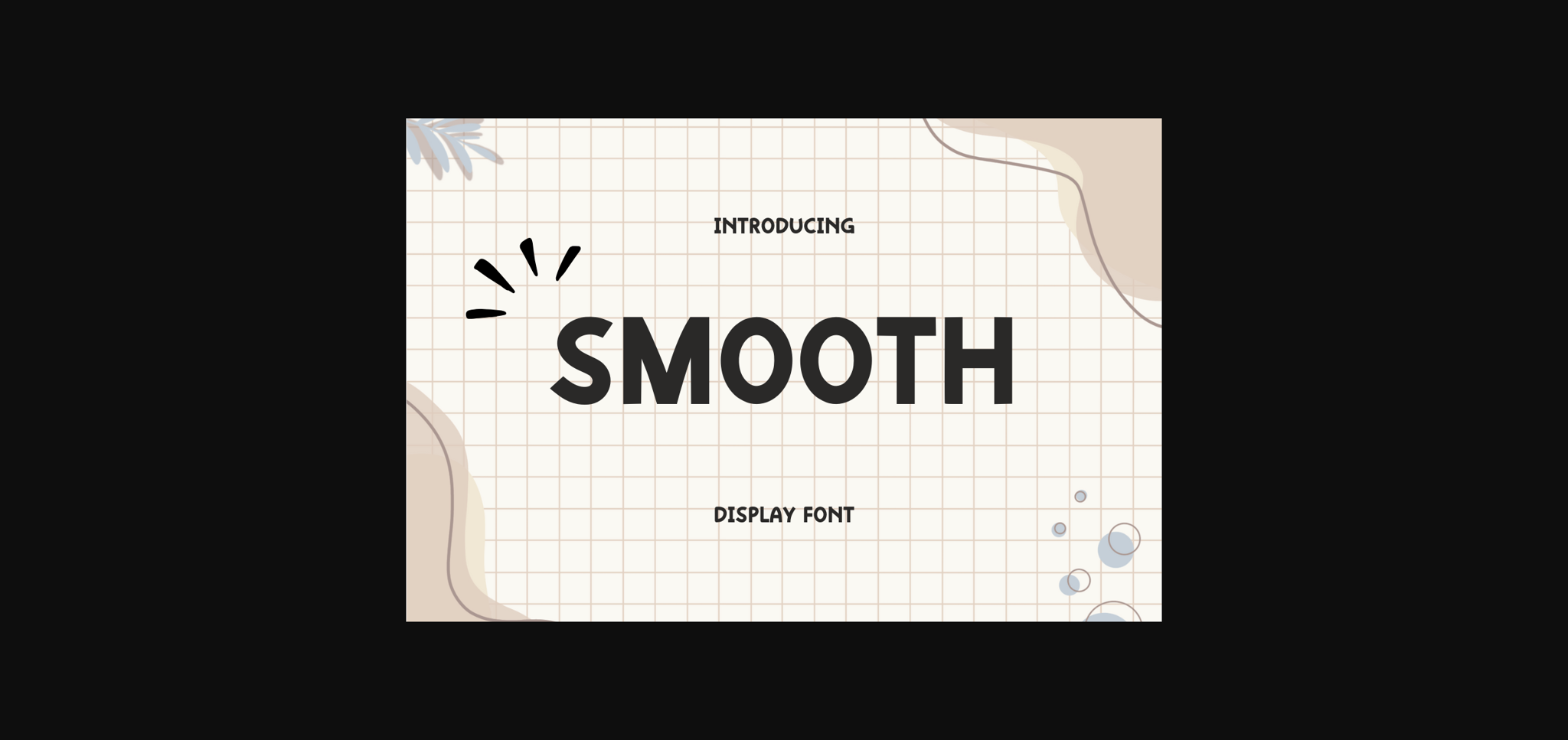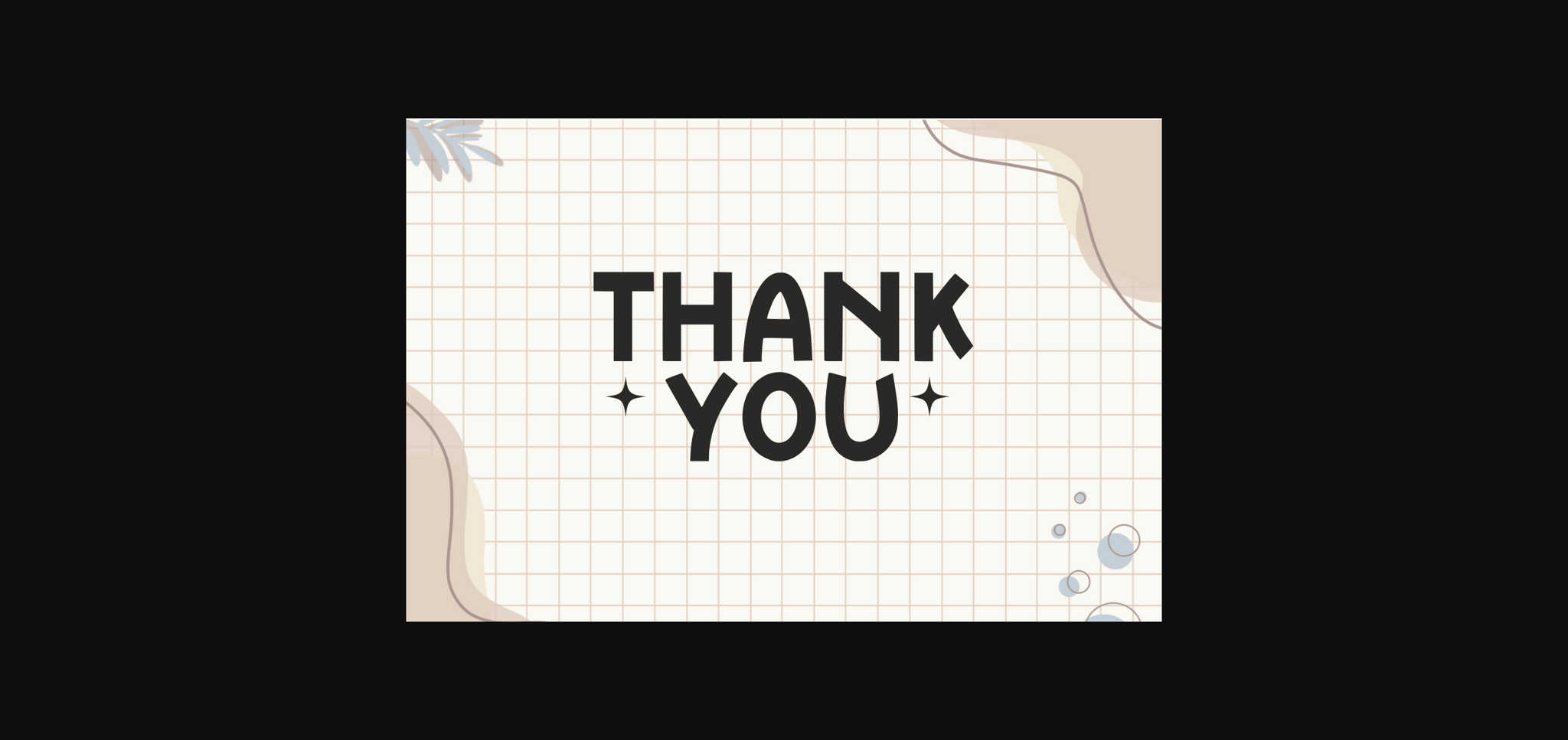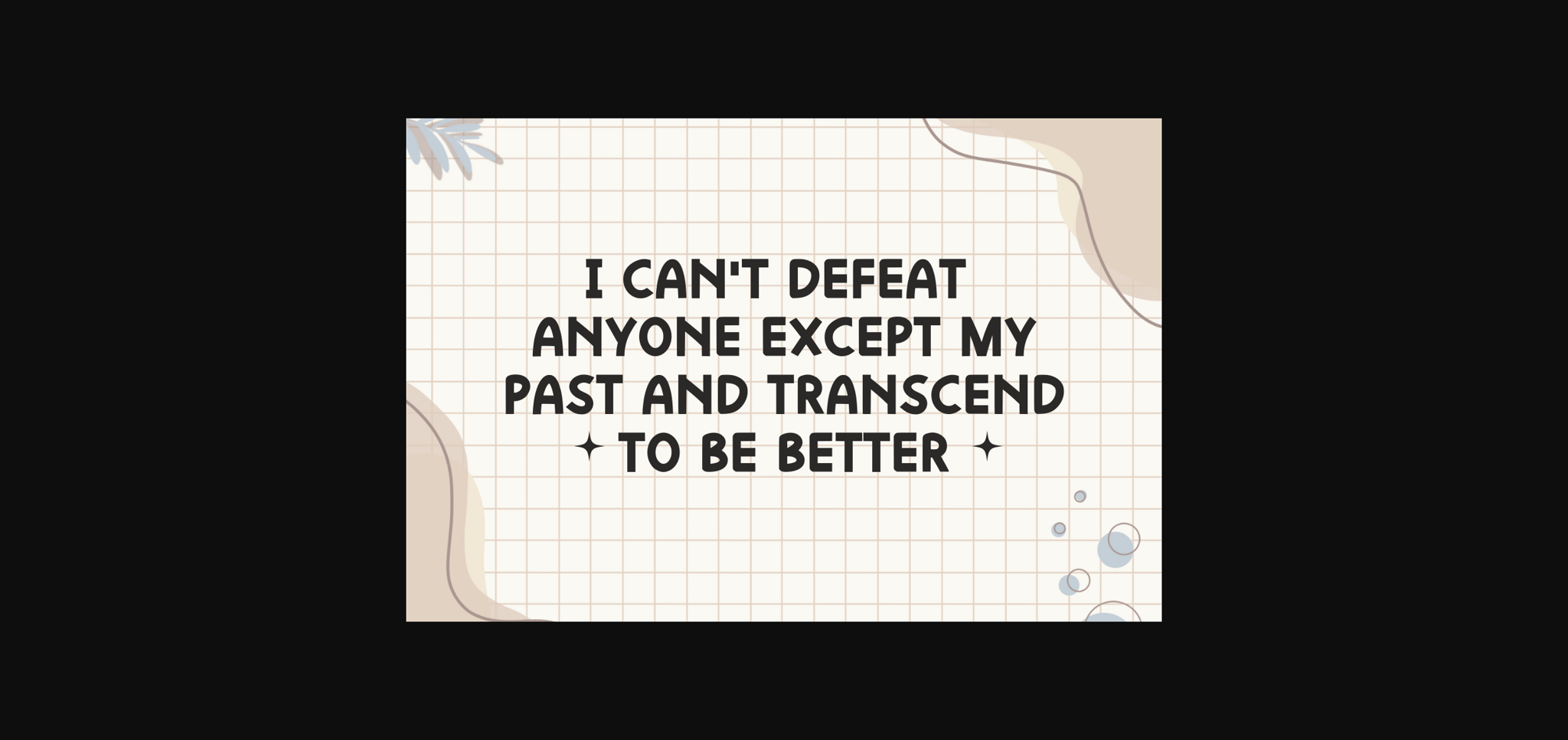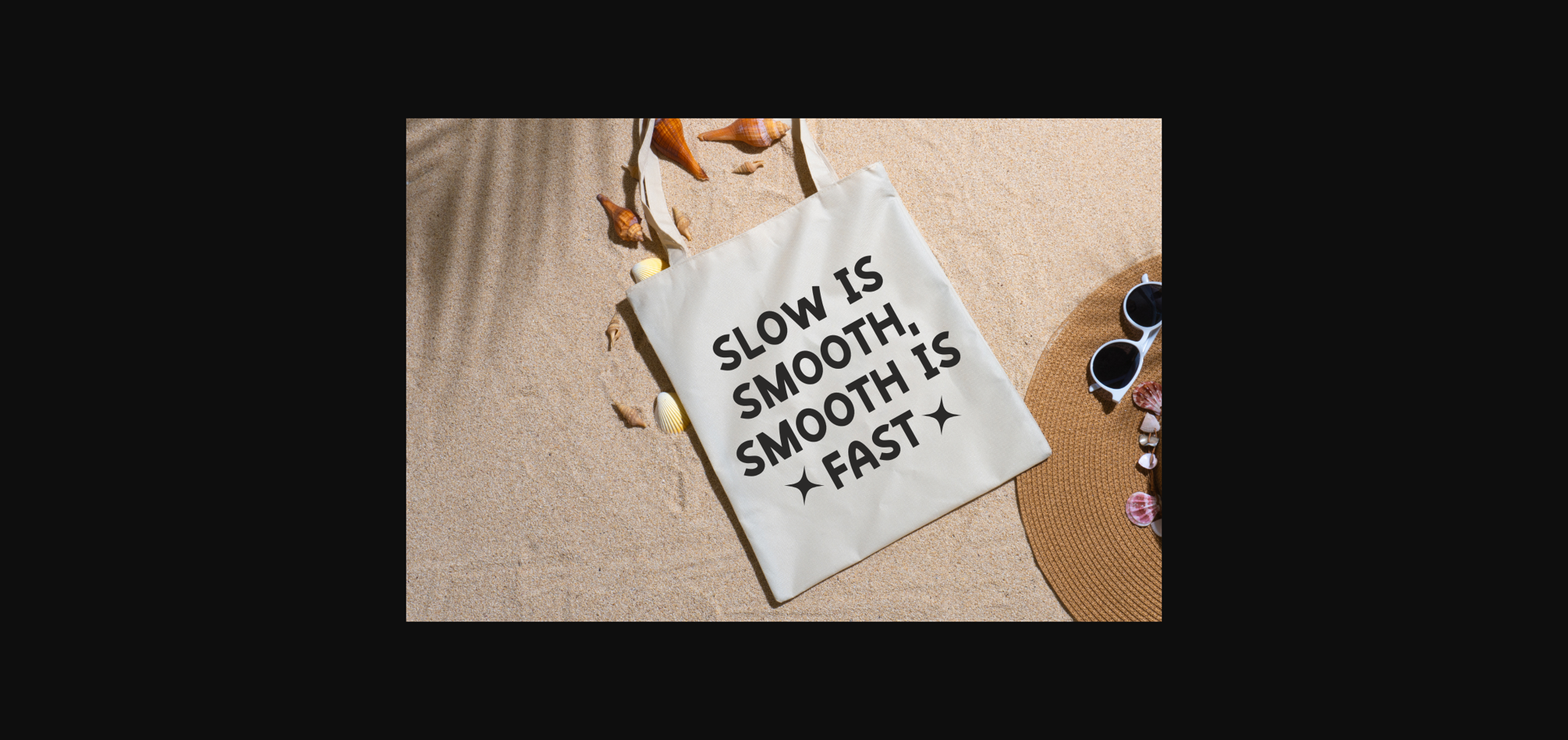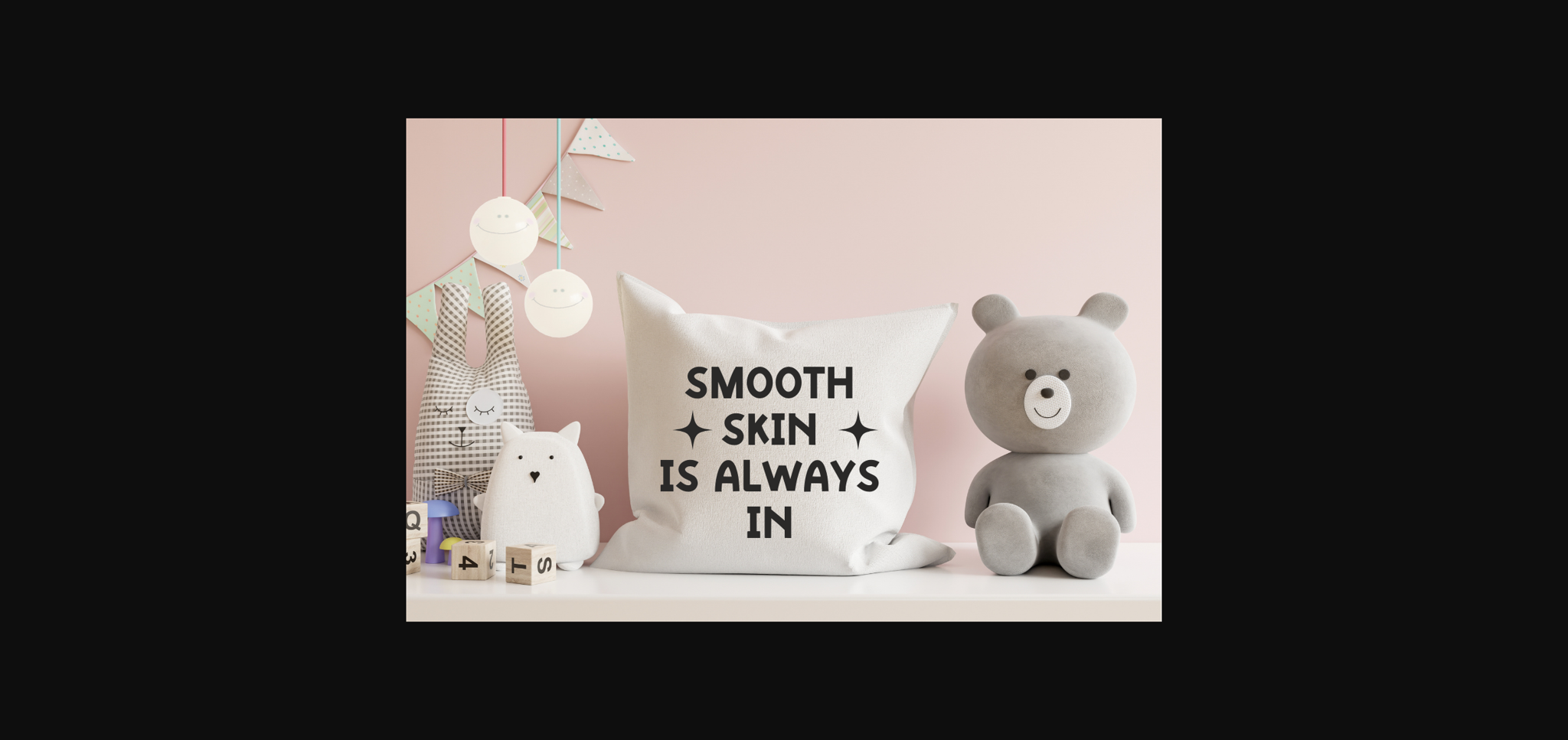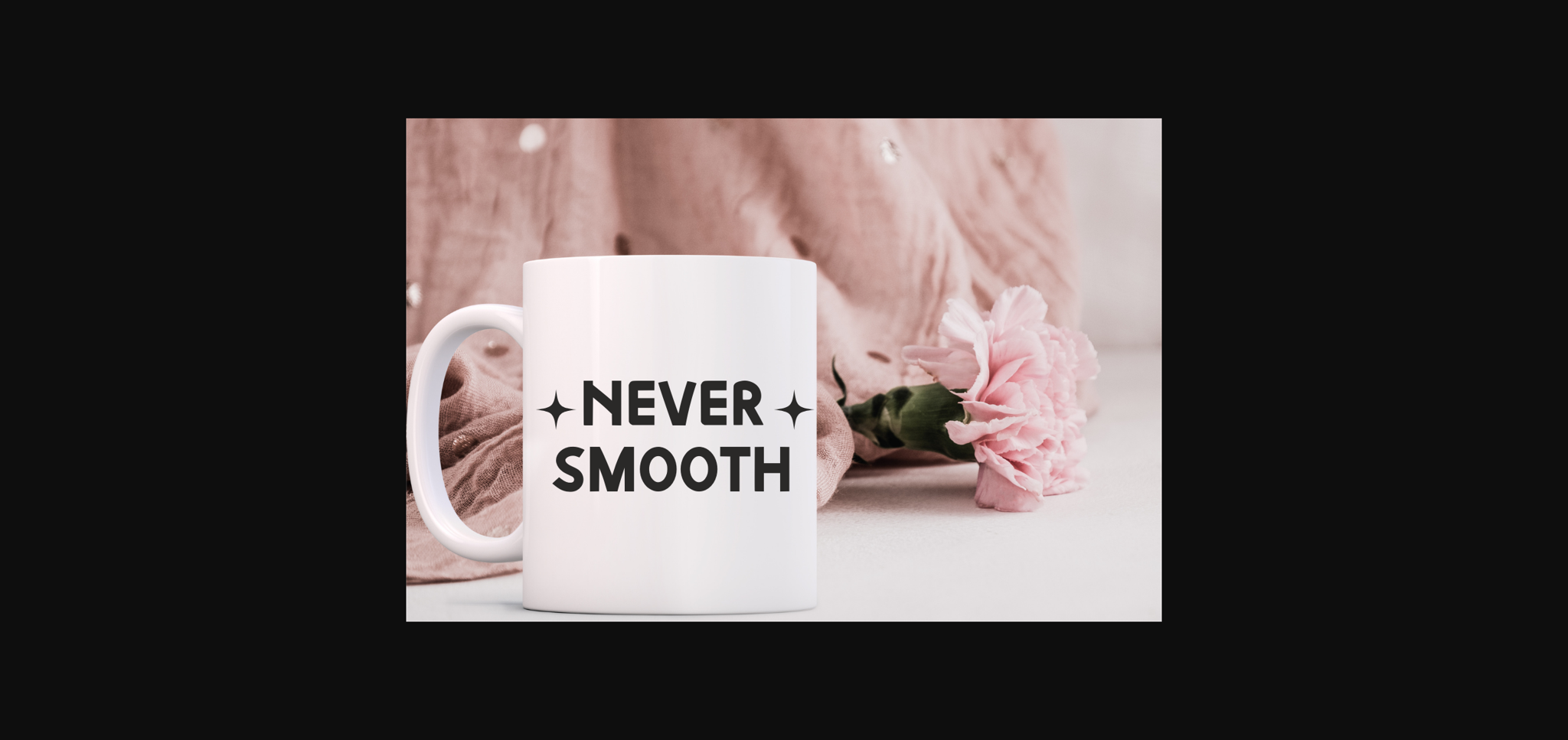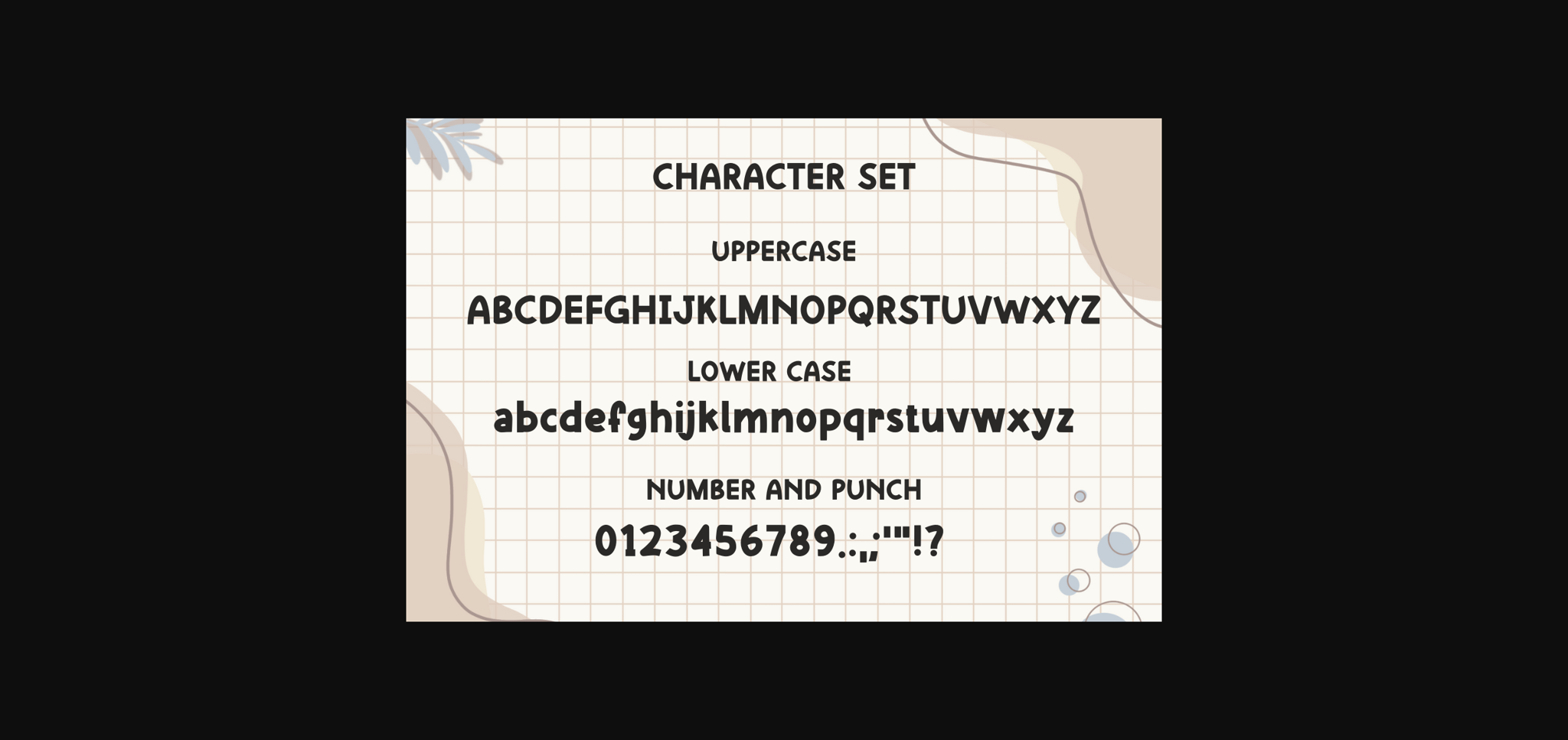
HomeSans Serif FontsSmooth Font Sans Serif Fonts Smooth Font FacebookXPinterestWhatsApp 1 of 10 ... Smooth Font Poster 2... Smooth Font Poster 3... Smooth Font Poster 4... Smooth Font Poster 5... Smooth Font Poster 6... Smooth Font Poster 7... Smooth Font Poster 8... Smooth Font Poster 9... Smooth Font Poster 10... About Smooth Font Smooth is a cute and playful sans-serif font. Whatever the topic, this font is perfect for your creative craft needs! DOWNLOAD NOW People also explored Sastrasila Font Butterbread Font Present Day Font Smitten Font Chilopod Cometime Font Radhegon Font Croshed Font Peachboys Font 291 0 TagsSmoothSmooth Font Previous articleRainbow FontNext articleSunday Vintage Font LEAVE A REPLY Cancel reply Comment: Please enter your comment! Name:* Please enter your name here Email:* You have entered an incorrect email address! Please enter your email address here Website: Save my name, email, and website in this browser for the next time I comment. Personal Use Free Hunting Font Personal Use Free Read more about this font Goodline Font Personal Use Free Read more about this font Happy Rabbit Personal Use Free Read more about this font Sathscha Personal Use Free Read more about this font BLOG How to Cut Any Font on Cricut: Convert a Font to SVG (Free) Turn any font into a clean SVG so it cuts crisp on Cricut - a quick 3-step workflow using a free font-to-SVG tool. Using Fonts in Digital Marketing: Tips to Strengthen Your Brand Identity Modern Sans-Serif Fonts That Brands Love in 2025 The 10 Best Handwriting Fonts to Add Personality to Your Designs